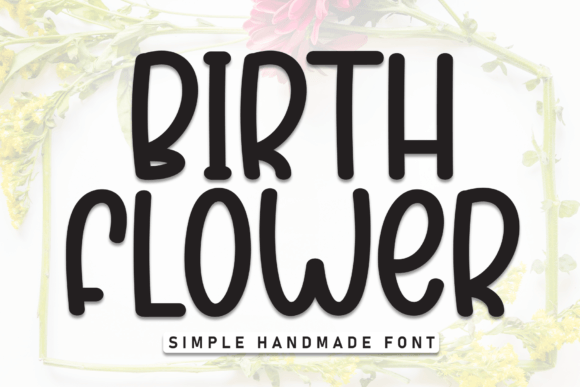
The Birth Flower Font: Elevate Your Designs with Elegance
Have you ever been in the midst of a design project, only to find yourself stuck on the perfect font? I recall a particularly frustrating experience while working on a wedding invitation design. My client wanted a font that was both elegant and unique, but I just couldn’t seem to find the right fit. That’s when I discovered the Birth Flower Font, and it completely transformed my design. In this article, I’ll share my experience with this beautiful font, its features, and how you can make the most of it in your own designs.
What I Love About the Birth Flower Font
- ✨ Unique and Creative: The Birth Flower Font offers a fresh and distinctive style that’s perfect for making your designs stand out.
- ✅ Versatile: This font is ideal for a wide range of projects, including wall displays, wedding invitations, social media post logos, advertisements, product packaging, and more.
While the Birth Flower Font is an excellent choice for many designers, there are a few minor considerations to keep in mind:
- 🤔 Learning Curve: As with any new font, there might be a slight learning curve to familiarize yourself with the unique features and glyphs.
- Experiment with the font’s OpenType features, such as glyphs and stylistic alternates, to add a personal touch to your design.
The Designer Inspiration Behind the Birth Flower Font
The Birth Flower Font was inspired by the delicate, intricate details of flowers and the elegance of handwritten script. The designer aimed to create a font that would capture the essence of nature and bring a touch of whimsy to designs. With its unique blend of elegance and playfulness, the Birth Flower Font is sure to become a favorite among designers.